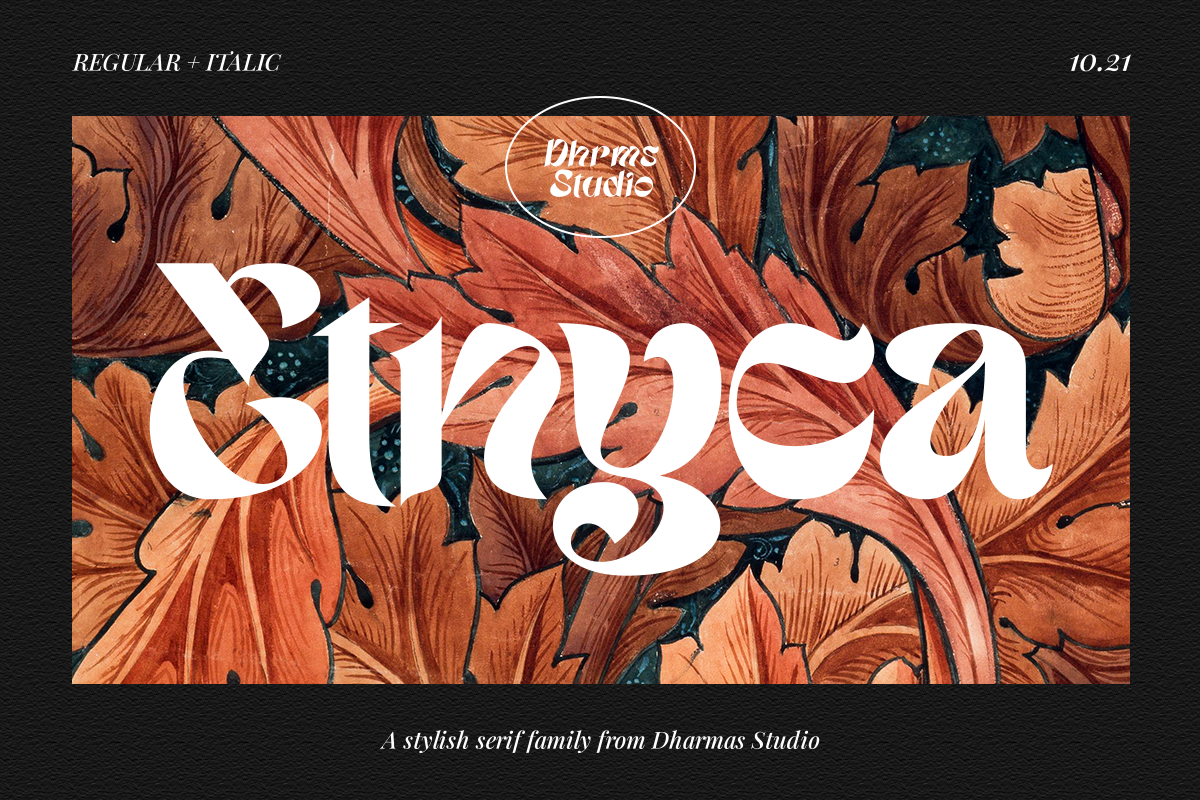
Etnyca - Stylish Display Typeface
Presenting new our font, Etnyca
Etnyca - fearless and stylish typeface perfect for headlines for print and web. It's modern, bold, and playful. Perfect if you want to add character to your project.
Etnyca fits perfectly too into those nostalgic mood boards and vintage logos. It comes with Italic style, unique lower and uppercase plus numbers, punctuation & multilingual letters
- Unique letterforms